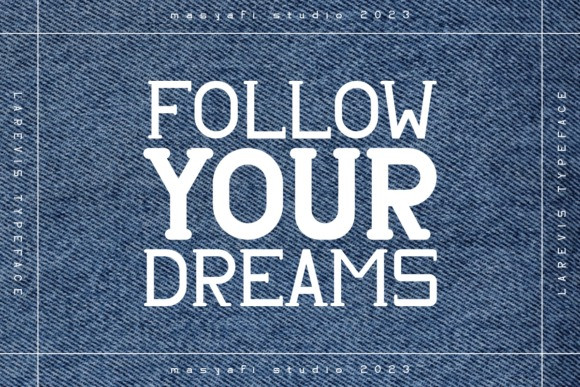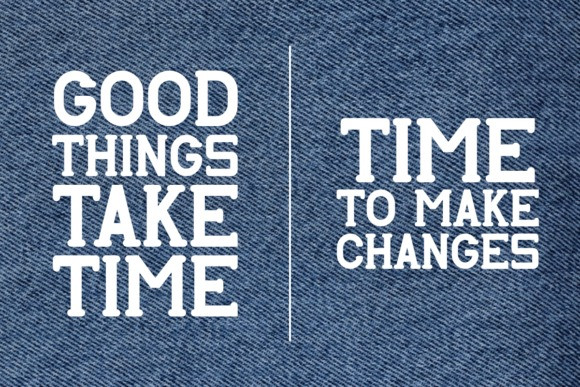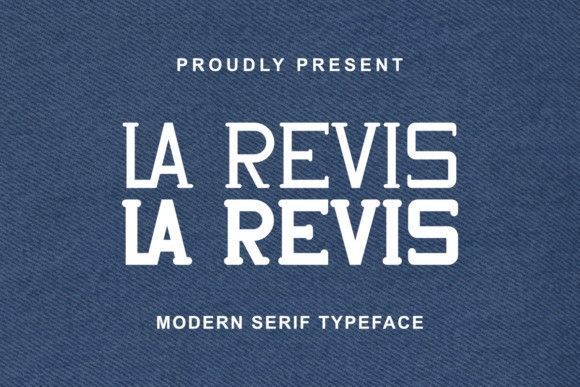
La Revis Font
La Revis Font is a serif typeface with a bold, modern, and masculine style, with regular and bold font styles. This font is perfect for your creative projects, svg files, craft projects, graphic tees, logos, social media, stickers, procreate, and more!